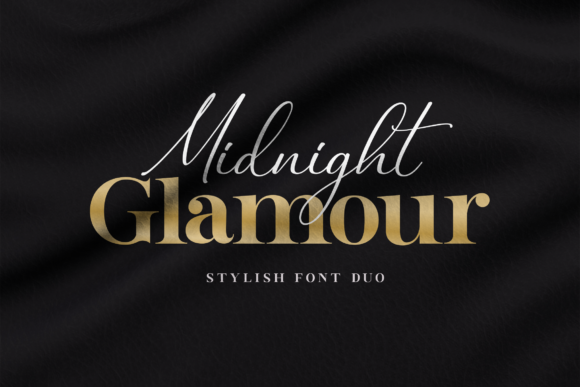
Unleash the Alluring Charm of Midnight Glamour: Where Elegance and Beauty Intertwine
Embark on a typographic journey like no other with Midnight Glamour, an exquisite duo font that exudes sophistication and grace. This captivating font family, meticulously crafted by the talented artisans at Letterflow Studio, presents a harmonious blend of a flowing script and a timeless serif, inviting you to create designs that resonate with elegance and allure.
Immerse yourself in the enchanting world of Midnight Glamour, where every letter is a work of art, meticulously designed to captivate and inspire. Whether you're a seasoned designer seeking to elevate your creative projects or a budding artist yearning to express your unique style, this font duo will ignite your imagination and transform your visions into stunning realities.
With Midnight Glamour, you hold the key to unlocking a treasure trove of creative possibilities. Adorn your Instagram posts with captivating quotes, craft heartfelt invitations that leave a lasting impression, or design logos that exude timeless sophistication. Let your imagination soar as you explore the boundless applications of this versatile font duo, transforming ordinary words into extraordinary expressions.
Feel the Heartbeat of Your Designs with Midnight Glamour
Indulge in the exquisite beauty of Midnight Glamour, a font duo that speaks to the soul with its delicate curves and graceful lines. Experience the thrill of your designs coming to life, as the script font dances across the page with a touch of whimsy, while the serif font grounds your creations with its unwavering stability.
Midnight Glamour possesses an uncanny ability to evoke emotions and captivate audiences. Its graceful strokes and elegant flourishes add a touch of magic to any project, transforming mundane text into captivating narratives. Prepare to be mesmerized as your designs take on a life of their own, captivating your audience with their undeniable charm and eloquence.
Midnight Glamour: The Perfect Companion for Your Creative Endeavors
Midnight Glamour is not just a font; it's an indispensable tool for creative professionals and design enthusiasts alike. With its versatility and timeless appeal, this duo font effortlessly adapts to a wide range of projects, becoming an extension of your creative vision.
Whether you're crafting stunning social media graphics that demand attention, designing brochures that exude professionalism, or creating eye-catching branding materials that leave a lasting impression, Midnight Glamour stands ready to elevate your designs to new heights. Embrace the transformative power of this font duo and watch as your creative ideas blossom into masterpieces that captivate and inspire.